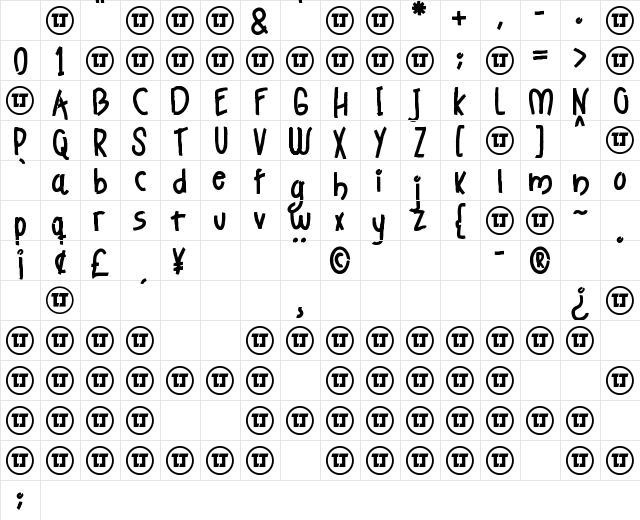
Complete Strong Heart Regular glyph index. Displaying only characters natively supported by Strong Heart Regular font.
Strong Heart is a composed and adaptable typeface that performs quietly and consistently across a wide range of design contexts.